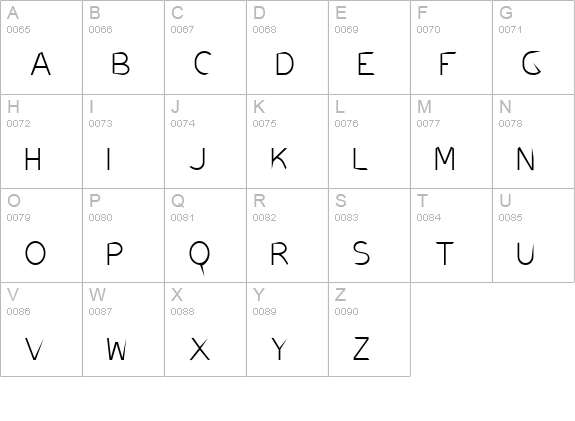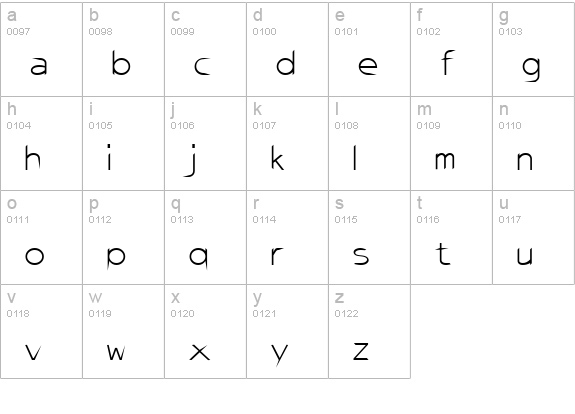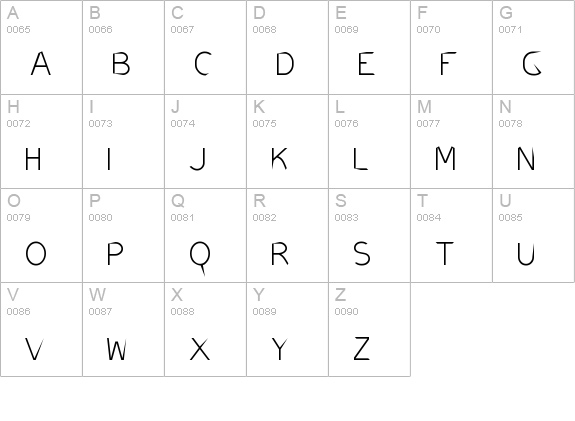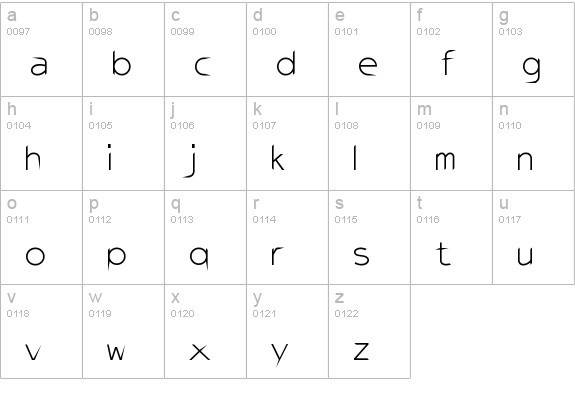
AirCut OneHundedandOne Font Details
AirCut OneHundredandOne font is a modern and stylish typeface that exudes elegance and sophistication. With its clean lines and contemporary design, this font is perfect for a wide range of design projects, from branding to packaging to web design. What sets AirCut OneHundredandOne font apart is its versatility and readability, making it a great choice for both headlines and body text. Whether you're looking to create a sleek and professional look or a trendy and edgy design, this font has you covered. The best part? AirCut OneHundredandOne font is completely free to download at FontsMarket.com. So go ahead and give your designs a fresh and modern touch with this fantastic font today.